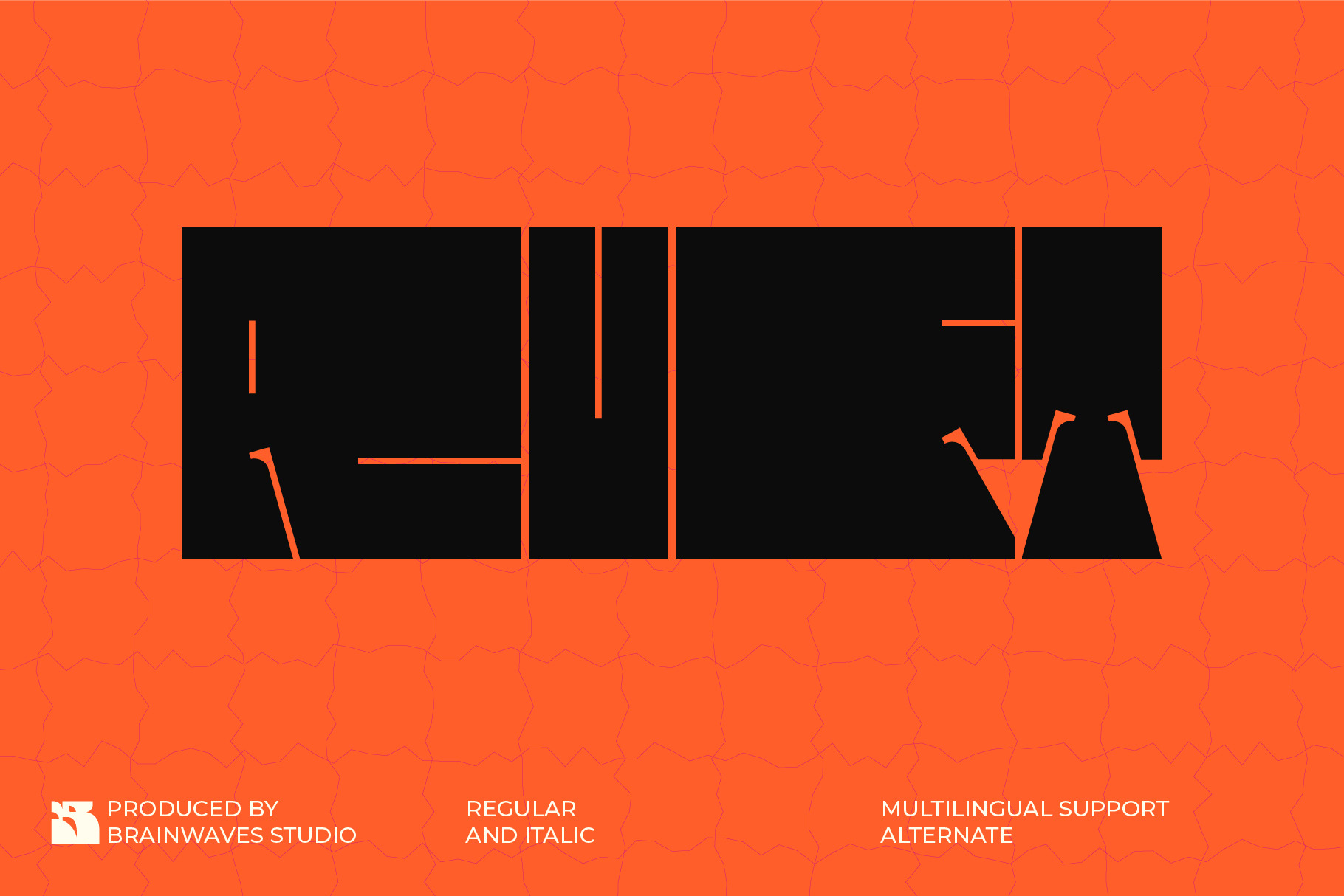
Ruft - Futuristic Display Font
Unleash your creativity with Ruft Display Font, a truly unique and cutting-edge typeface that breaks all design norms. This font isn't just letters; it's a statement! With its deconstructed and abstract forms, Ruft brings a powerful, futuristic, and edgy vibe to any project.
Imagine bold headlines that grab attention instantly, or logos that speak volumes about innovation. Ruft's strong, solid weight makes it perfect for impactful designs, while its glitch-inspired aesthetic adds a high-tech, digital feel. It’s ideal for brands that want to be seen as daring, modern, and ahead of the curve.
Why Ruft Display Font is your next design obsession
- Unique Alternates: Discover endless creative possibilities with varied deconstructed letters.
- Multilingual Support: Reach a global audience with extensive language coverage.
- Bold & Impactful: Perfect for making a strong visual statement.
- Modern & Avant-Garde: Aligns perfectly with contemporary design trends.
Elevate your designs and make an unforgettable impression with Ruft Display Font – where art meets innovation!